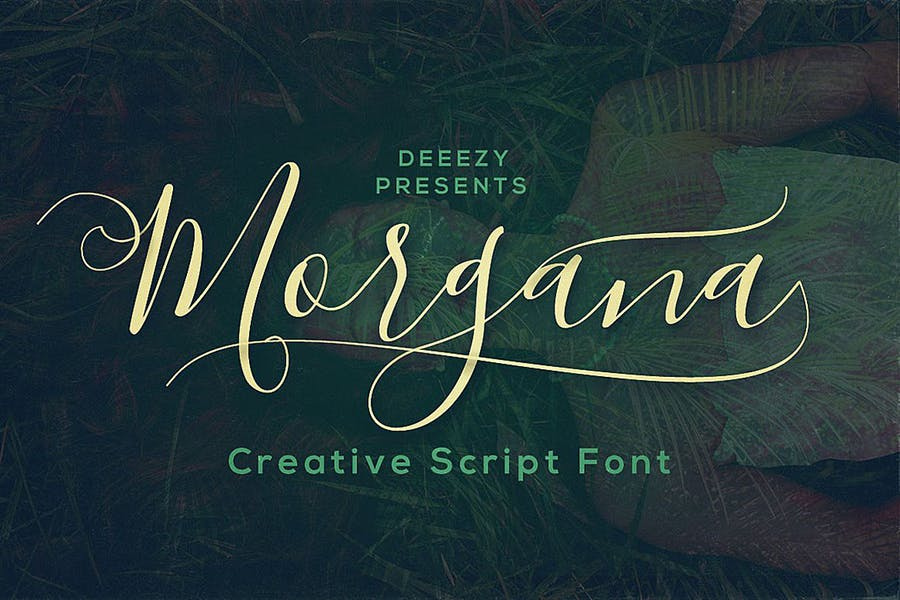
Morgana Script Font
Morgana Script Font creates excitement because it embodies the mystical elegance and enchanting power of ancient magic with its flowing script letterforms and sorceress-inspired character design. The font's graceful curves and mystical aesthetic instantly convey magical sophistication and ethereal beauty, making any brand appear enchanting and authentically mystical. Its carefully crafted magical details and enchanted character create an immediate sense of mystical allure that captivates audiences seeking magical experiences, spiritual transformation, and products that celebrate the transformative power of ancient wisdom and mystical enchantment.
The Morgana Script Font family includes multiple weights and styles: Regular, Bold, Light, Medium, Italic, Condensed, Extended, Mystical, Enchanted, and Magical versions. Each variant maintains the font's signature mystical character while offering different levels of magical styling and enchanted authenticity suitable for various spiritual and fantasy applications.